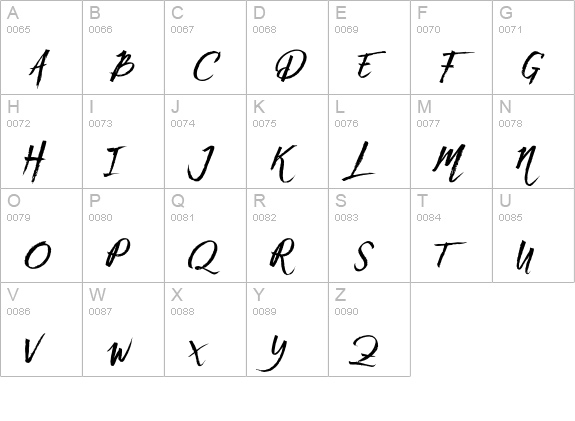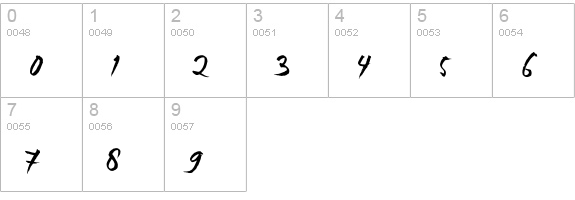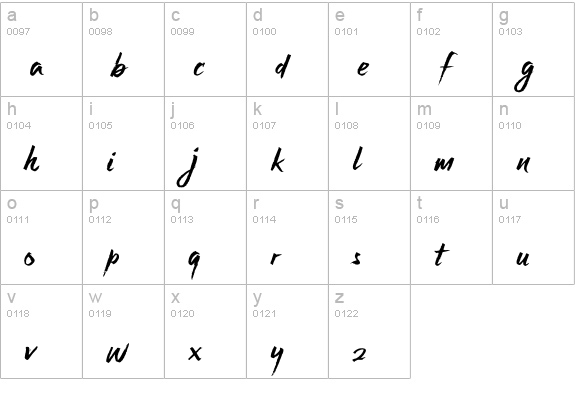
Native Land font is a stunning display typeface that captures the essence of the great outdoors and the beauty of nature. With its unique design inspired by traditional indigenous art, this font conveys a sense of heritage, culture, and connection to the land. The intricate details and organic shapes of Native Land font make it a versatile choice for various design projects, from branding to editorial work. What makes Native Land font even more special is that it is available for free download at FontsMarket.com. This means you can easily access this beautiful typeface and use it in your creative endeavors without any cost. Whether you're working on a poster, website, or packaging design, Native Land font will bring a touch of authenticity and natural charm to your projects. Embrace the spirit of the land with Native Land font and let your designs flourish with its unique style and character.